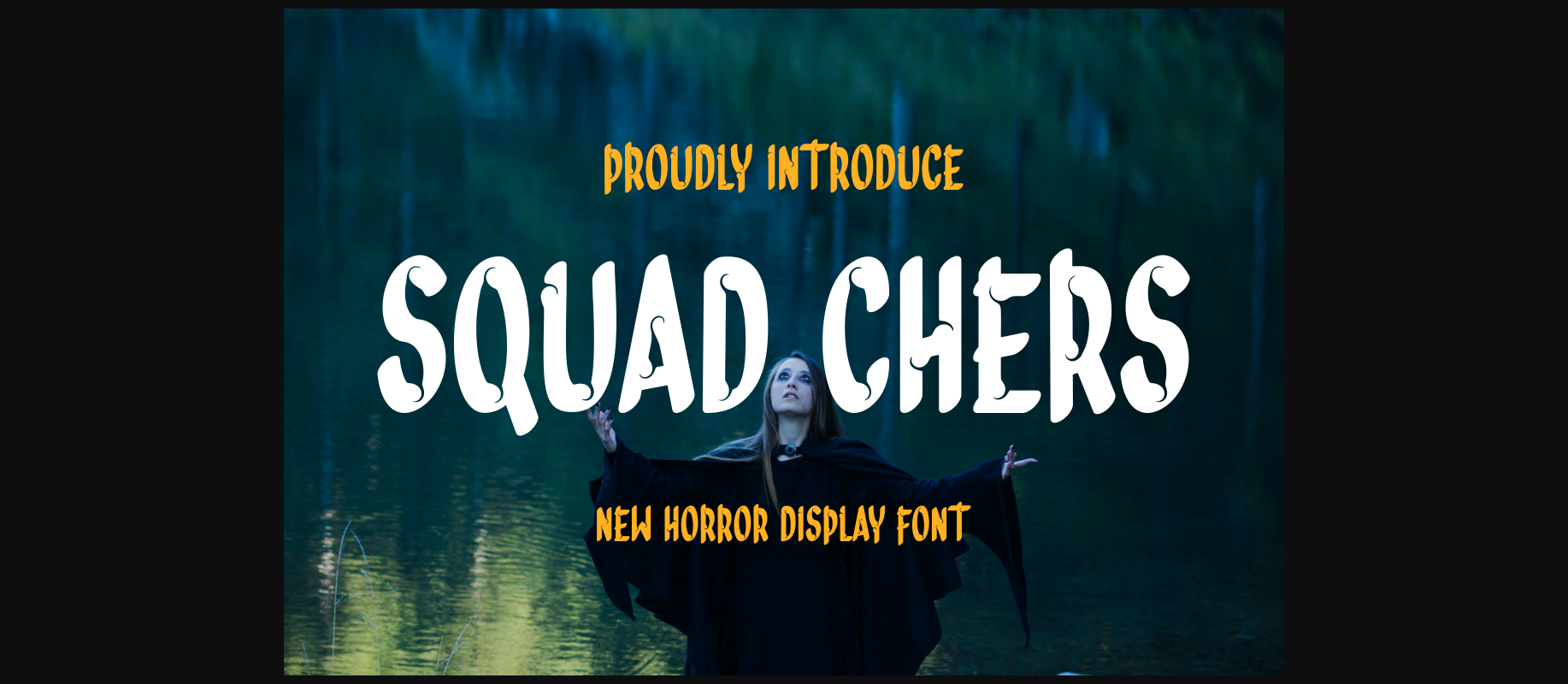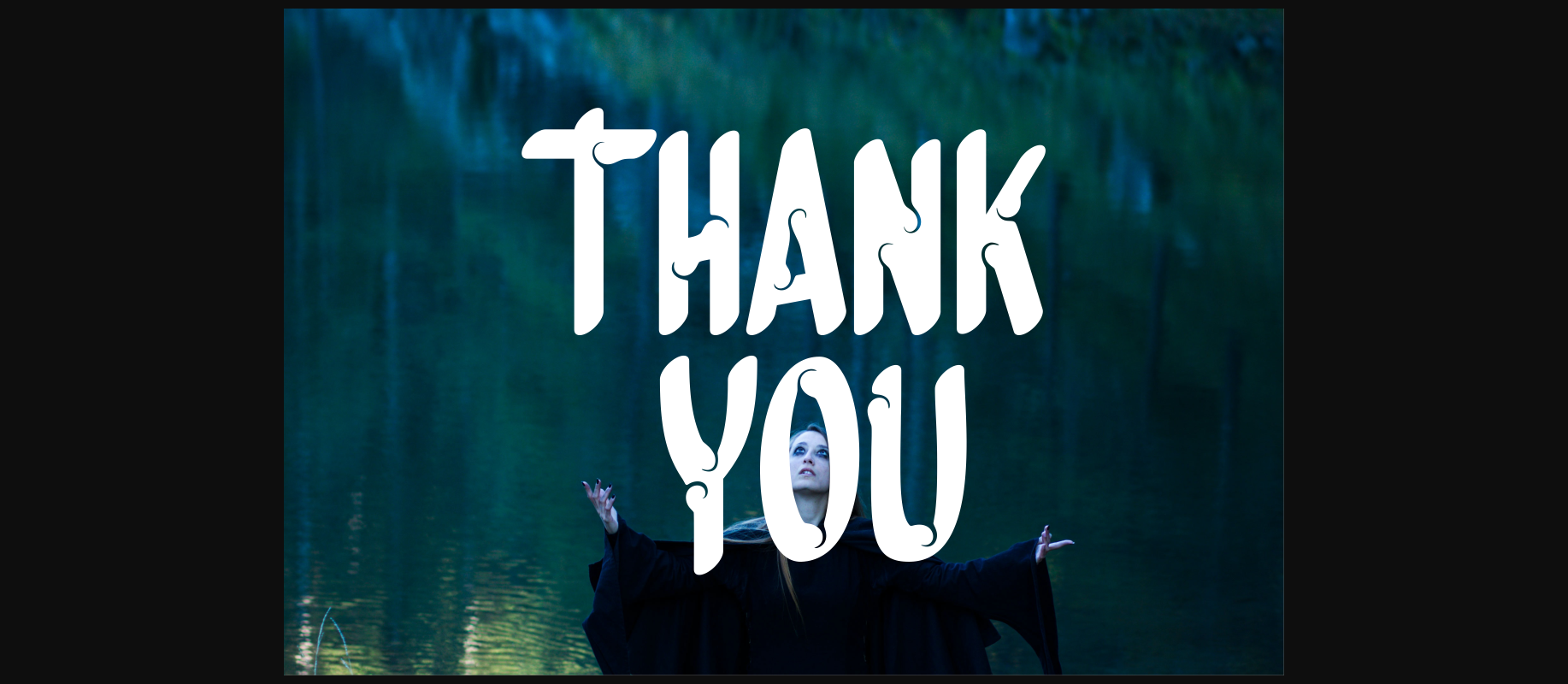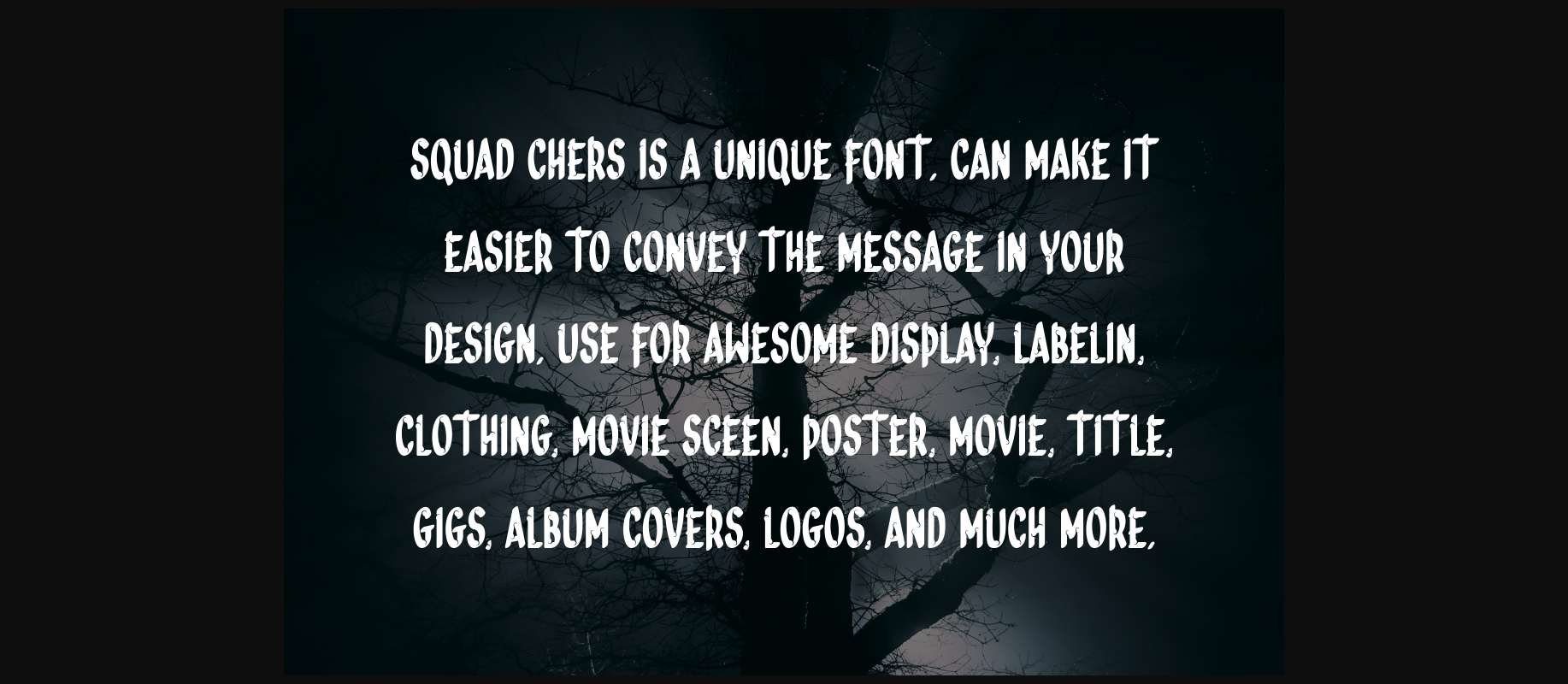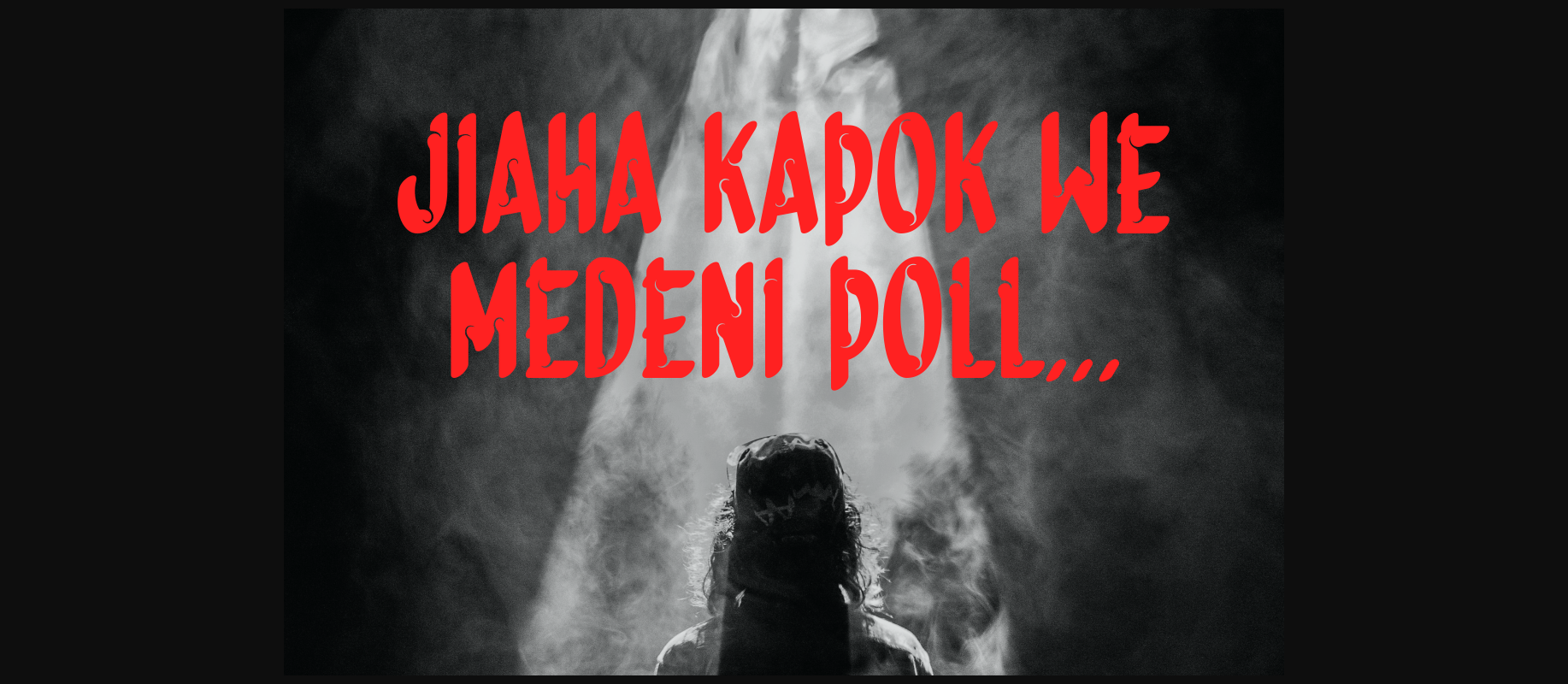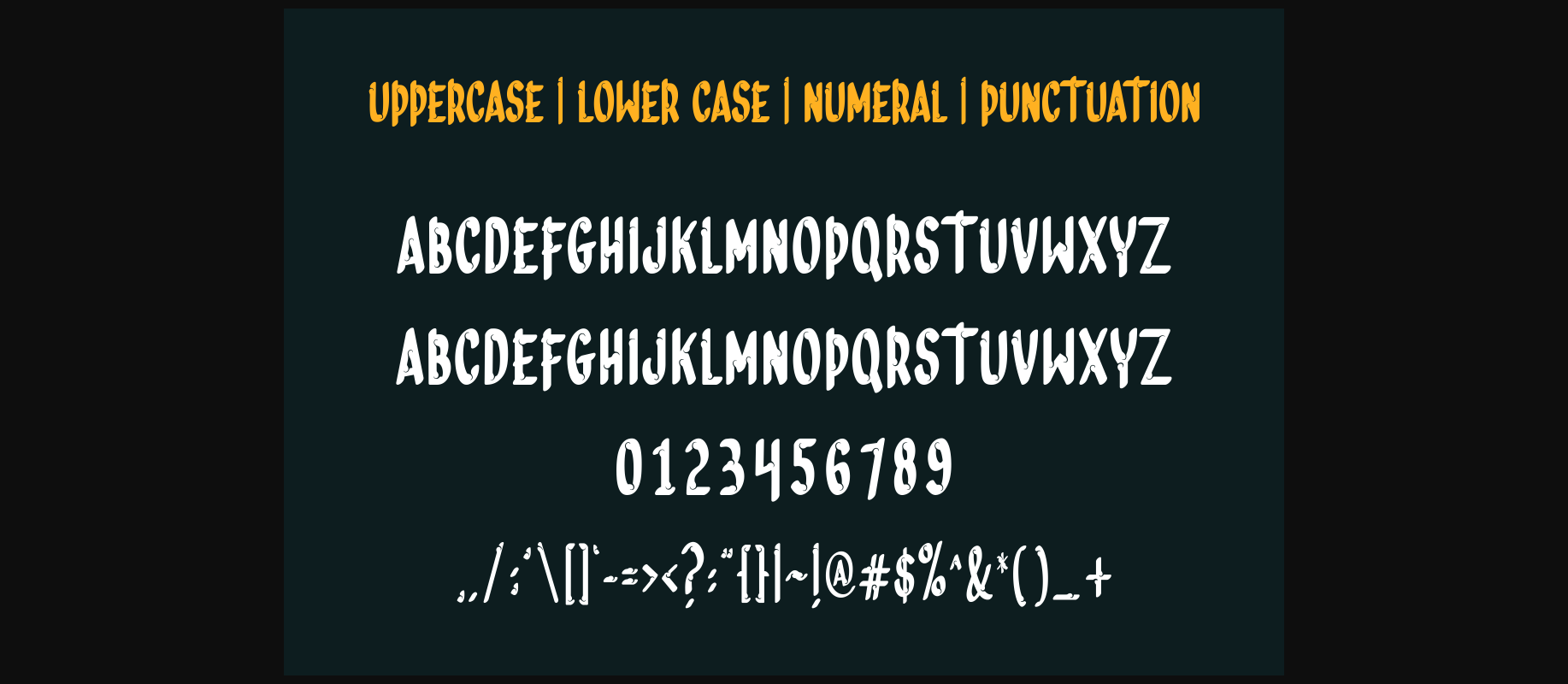
About Squad Chers Font
SQUAD CHERS is a unique font. Can make it easier to convey the message in your design.
Use for awesome display, labeling, clothing, movie sceen, poster, movie title, gigs, album covers, logos, and much more.
– Uppercase & lowercase letters
– Numbers & punctuation